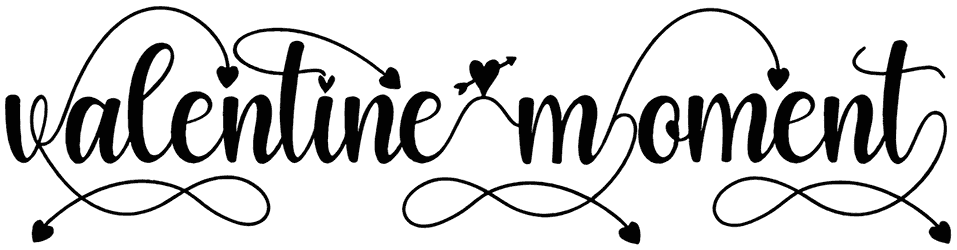
Valentine Moment Font
Elegance, art, and feminine, all come together to give you such a captivating combination, while inspired by the script font, Valentine Moment with its cursive body and sweet swashes dances like a romantic host to assist you to succeed in the beats of designing many contents.